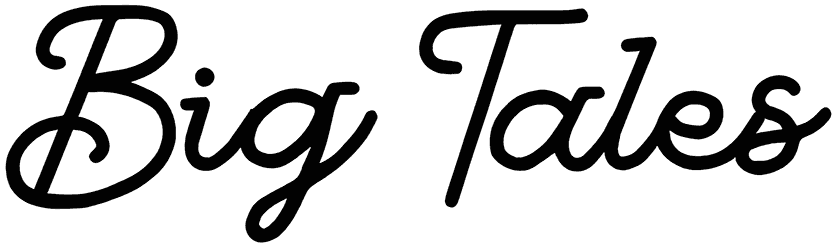
Big Tales Font
Use a casual handwritten font such as the present item to add a touch of appealing and friendly mood to your novel project. The Big Tales font has cursive letters that are going to give a soft visual to the words of your layouts namely a drama movie poster. Give this script font a chance and set it for your future project to convey a ravishing vibe to your observers.
Big Tales is a monoline script font. It maintains its classy calligraphic influences while feeling contemporary and fresh.